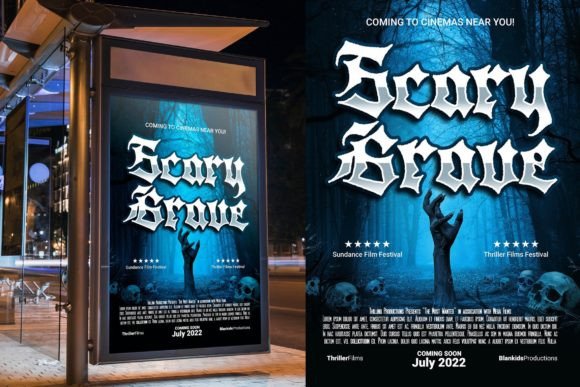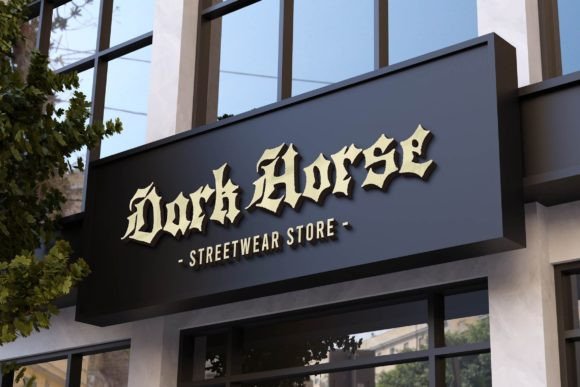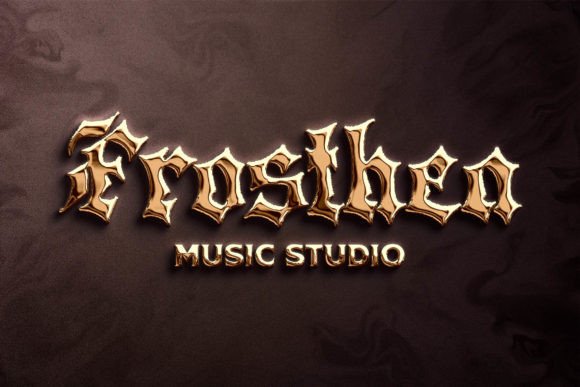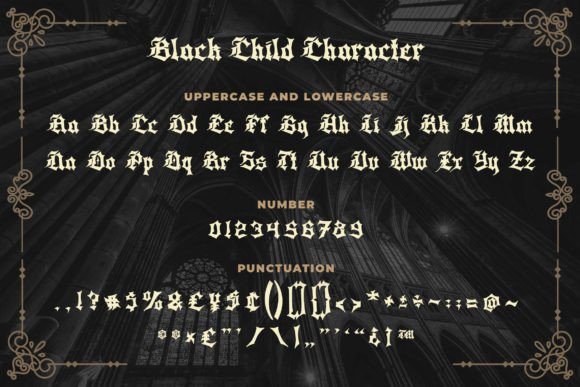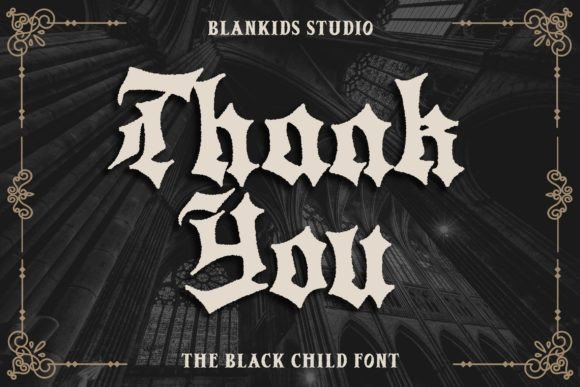
Introducing Black Child Font: The Ultimate Blackletter Typeface for Bold Designs
In the world of typography, a good font can make all the difference in creating a lasting impression. For designers and crafters looking for a bold and daring typeface, Black Child Font is an excellent choice. This splendid blackletter font is designed to impress with its stylish features, making it perfect for product packaging, branding, or any project that requires a statement piece.
What is Black Child Font?
Black Child Font is a modern blackletter typeface that boasts a unique and stylish design. Its bold and dramatic strokes are sure to grab attention, making it an ideal choice for designers who want to create a lasting impression. The font’s sleek lines and elegant curves give it a sophisticated look that’s perfect for high-end branding, packaging, and advertising.
Key Features of Black Child Font
- Bold and Dramatic Strokes: Black Child Font features bold and dramatic strokes that are sure to grab attention. Its thick lines and sharp edges give it a rugged and edgy look that’s perfect for making a statement.
- Stylish and Elegant Curves: Despite its bold strokes, Black Child Font also features elegant curves that give it a sophisticated look. This makes it perfect for high-end branding, packaging, and advertising.
- Highly Versatile: Black Child Font is highly versatile and can be used for a wide range of projects, from product packaging to branding, advertising, and more.
- Easily Readable: Despite its bold design, Black Child Font is easily readable, making it perfect for use in body text, headlines, and titles.
Uses of Black Child Font
Black Child Font is perfect for a wide range of projects, including:
- Product Packaging: Use Black Child Font to create eye-catching product packaging that stands out on store shelves.
- Branding: Create a bold and memorable brand identity with Black Child Font.
- Advertising: Use Black Child Font to create attention-grabbing ads that demand attention.
- Signage: Black Child Font is perfect for creating eye-catching signage that stands out in a crowd.
Why Choose Black Child Font?
There are many reasons why designers and crafters should choose Black Child Font for their projects. Here are just a few:
- Unique and Stylish Design: Black Child Font features a unique and stylish design that’s sure to impress.
- Highly Versatile: Black Child Font is highly versatile and can be used for a wide range of projects.
- Easily Readable: Despite its bold design, Black Child Font is easily readable, making it perfect for use in body text, headlines, and titles.
- Time-Saving: With Black Child Font, designers can save time and effort by using a pre-designed typeface that’s ready to use.
Tips for Using Black Child Font
Here are a few tips for using Black Child Font effectively:
- Use it Sparingly: While Black Child Font is bold and attention-grabbing, it’s best to use it sparingly to avoid overwhelming the reader.
- Pair it with Other Fonts: Black Child Font pairs well with other fonts, so don’t be afraid to experiment with different combinations.
- Adjust the Size and Color: Experiment with different sizes and colors to find the perfect combination for your project.
In conclusion, Black Child Font is a splendid blackletter font that’s perfect for designers and crafters looking for a bold and daring typeface. Its stylish features, highly versatile design, and easily readable text make it perfect for a wide range of projects, from product packaging to branding, advertising, and more. With Black Child Font, designers can create eye-catching designs that demand attention and leave a lasting impression.